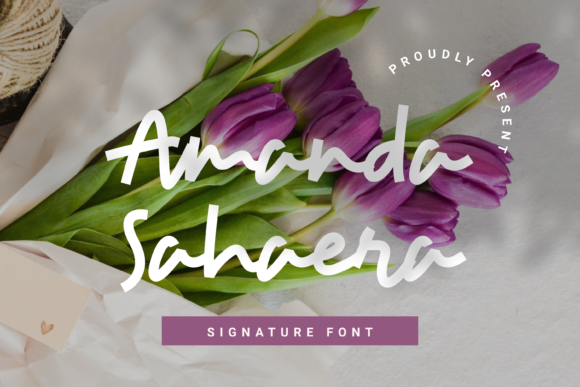
Journey into the Realm of Typographic Elegance with Amanda Sahaera Font - Where Art and Expression Intertwine
Unleash your creativity and embark on a typographic adventure with Amanda Sahaera Font, the enchanting script font that captures the essence of romance and playfulness. Its graceful characters, reminiscent of handwritten love letters, dance across the page, evoking a sense of nostalgia and heartfelt emotions.
Discover a World of Endless Possibilities
With Amanda Sahaera Font, your artistic vision knows no bounds. Whether you're designing wedding invitations that exude elegance, crafting heartfelt birthday cards that touch the soul, or creating captivating magazines and books that transport readers to other worlds, this font becomes your trusted companion.
Add a Touch of Charm to Your Digital Creations
Infuse your online presence with a touch of sophistication and charm. Amanda Sahaera Font lends its beauty to watermarks, adding a unique signature to your digital creations. Transform quotes into visually stunning works of art, capturing the essence of your message with each perfectly rendered letterform.
Experience the Magic of Amanda Sahaera Font Today!
Step into the realm of typographic artistry and let Amanda Sahaera Font guide you on a journey of self-expression. With its versatility and boundless charm, this font will elevate your designs to new heights of creativity. Embrace the beauty of handwritten elegance and let your imagination soar with Amanda Sahaera Font.